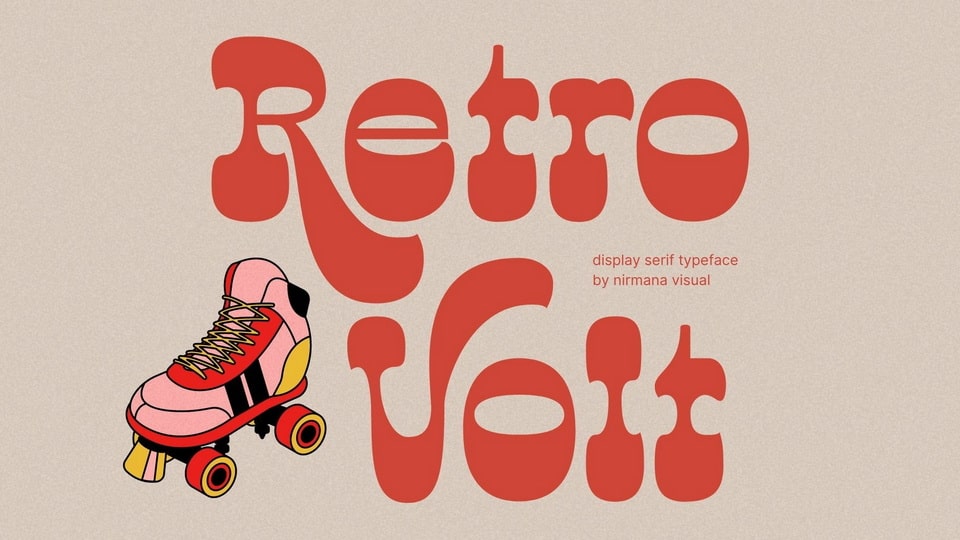
Download Retro Volt font, a cool and funky display typeface inspired by the 70s-80s design era. Retro Volt font offers beautiful typographic harmony for a diversity of design projects.